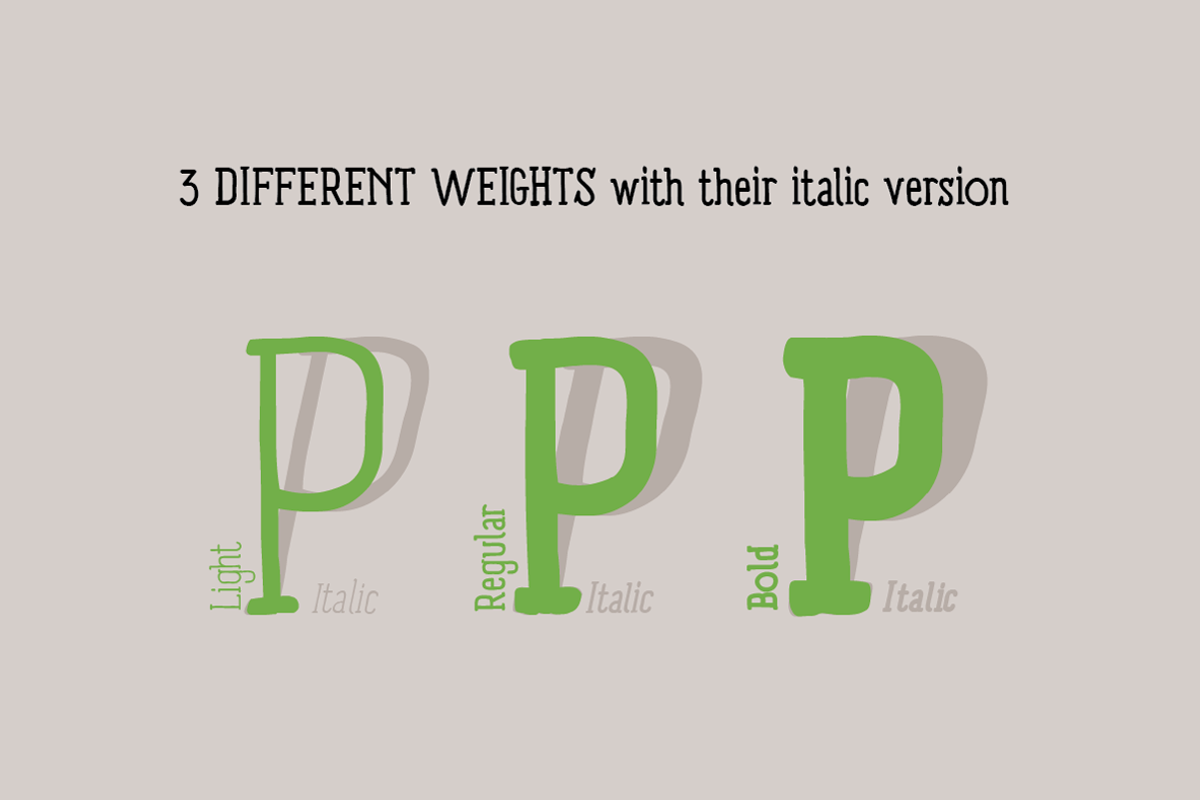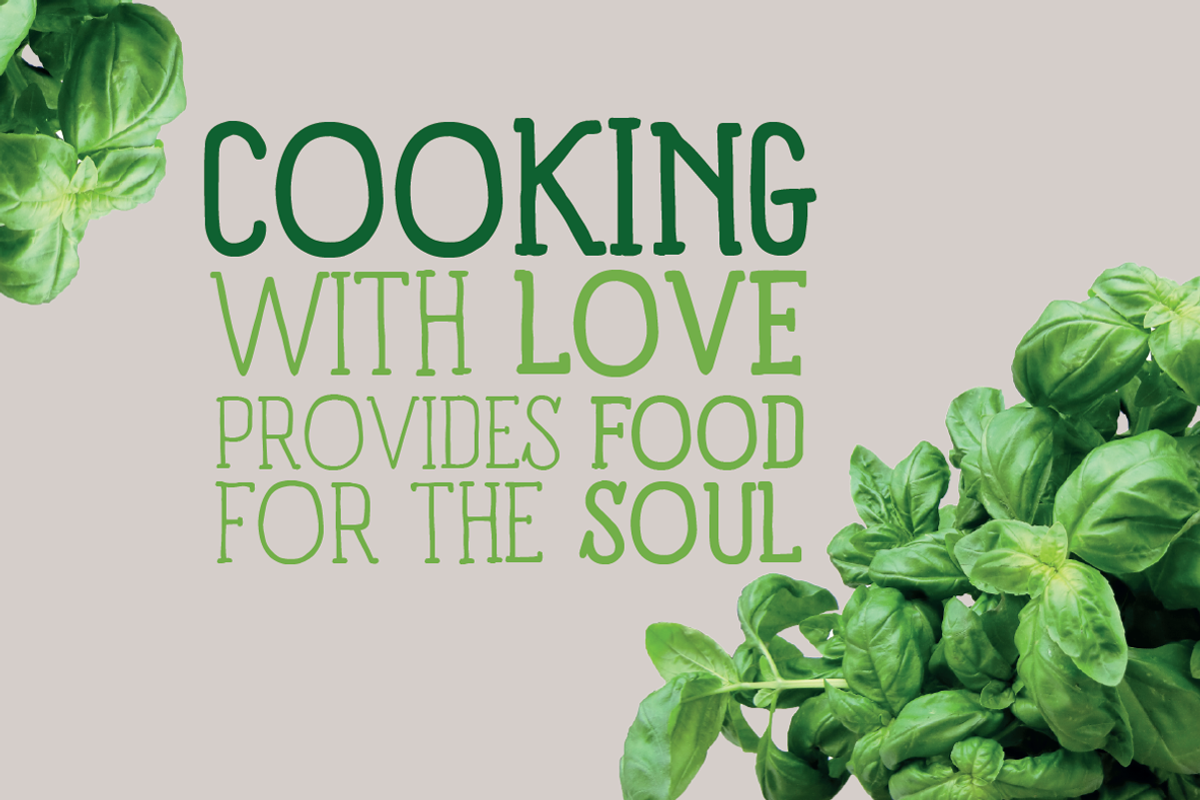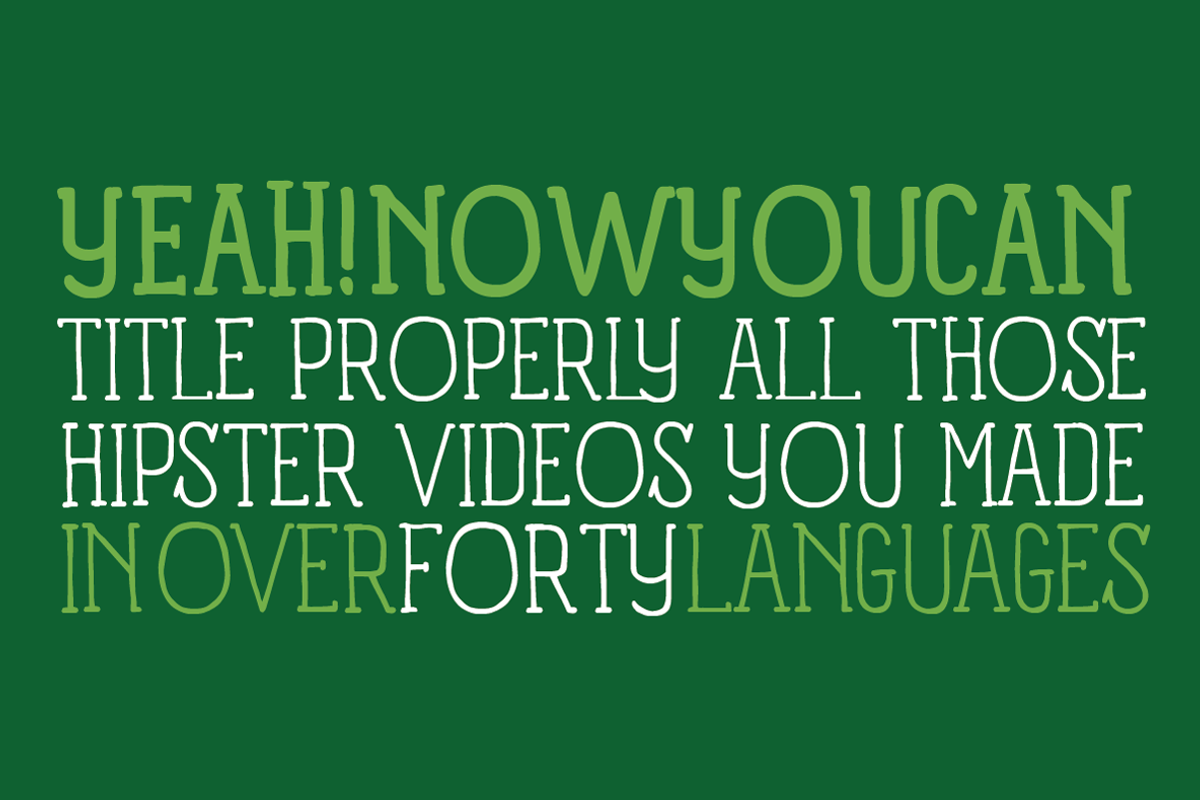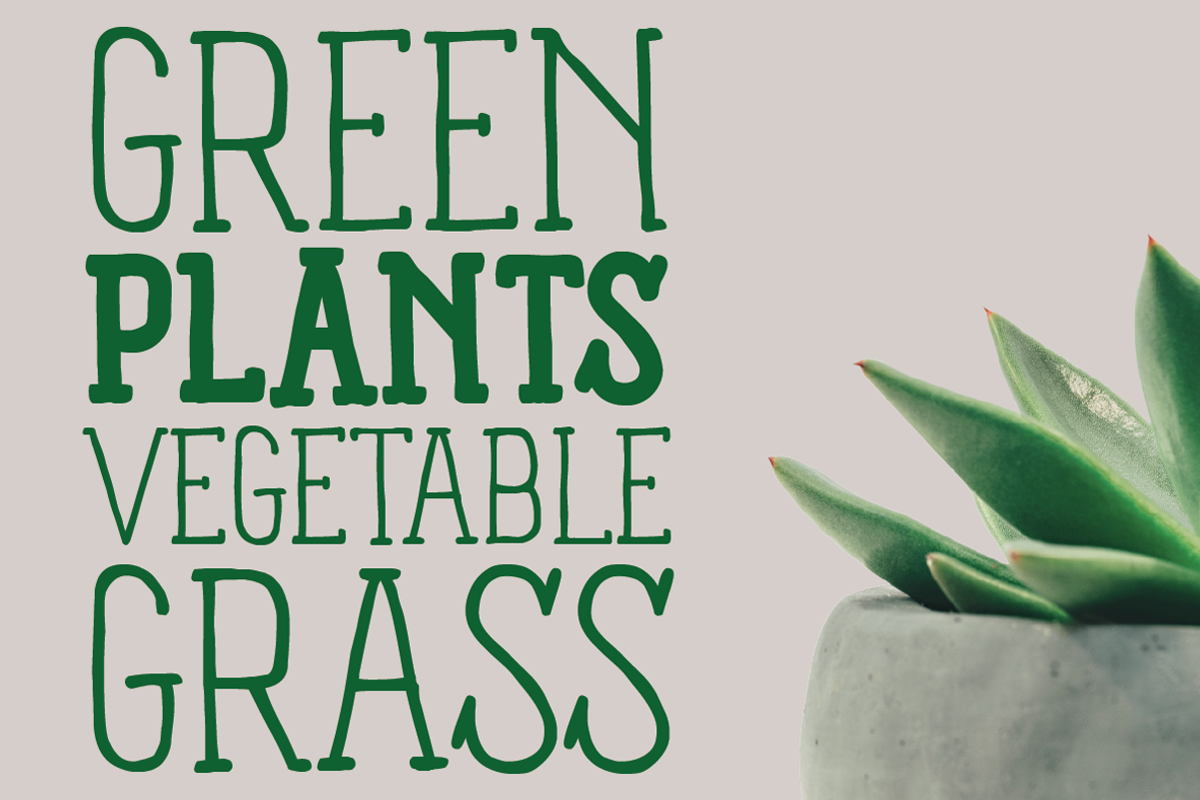
Panforte Serif - 6 fonts
Panforte Serif - 6 fonts by Zetafonts is a font selected for branding, posters, packaging, typography.
Why Panforte Serif - 6 fonts is worth a look
Panforte Serif - 6 fonts by Zetafonts fits naturally into Branding, posters, packaging, typography.